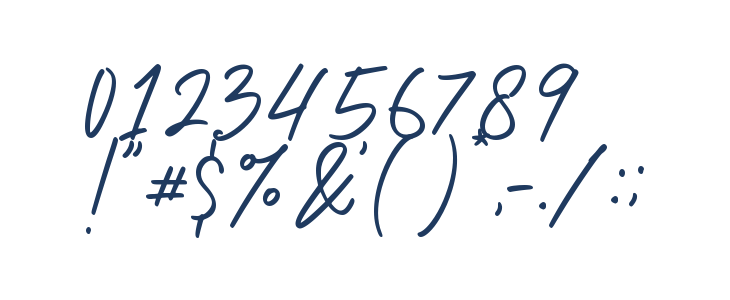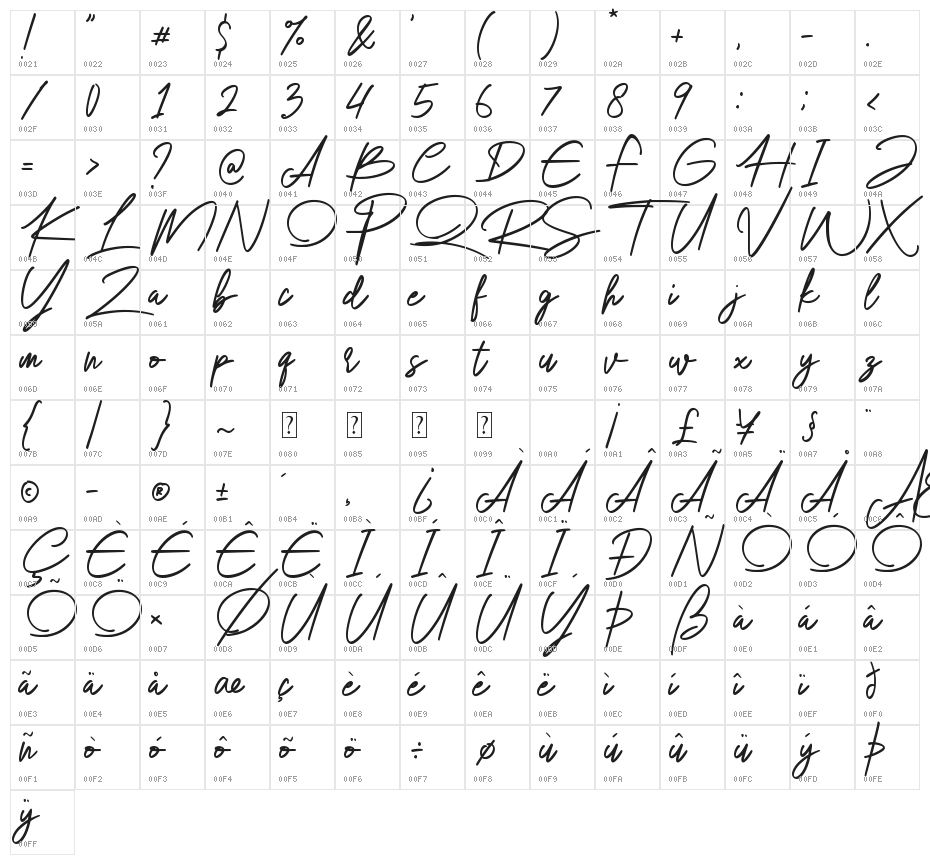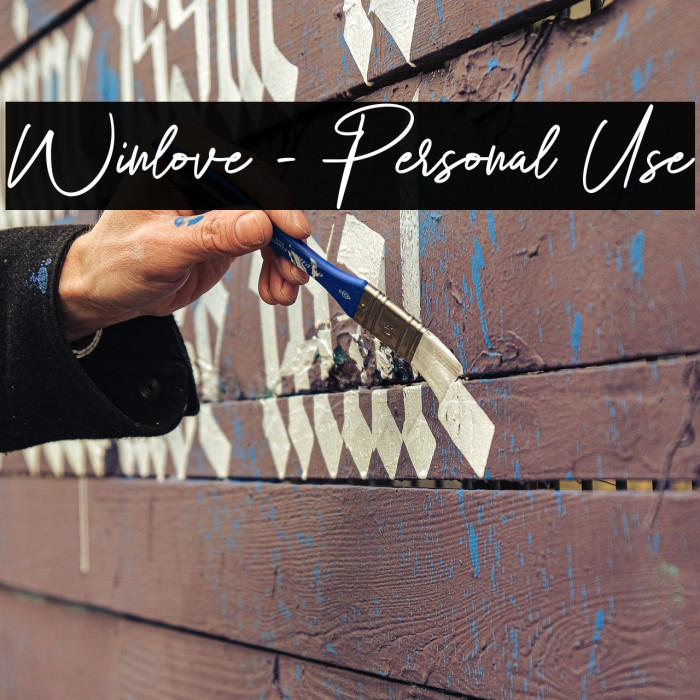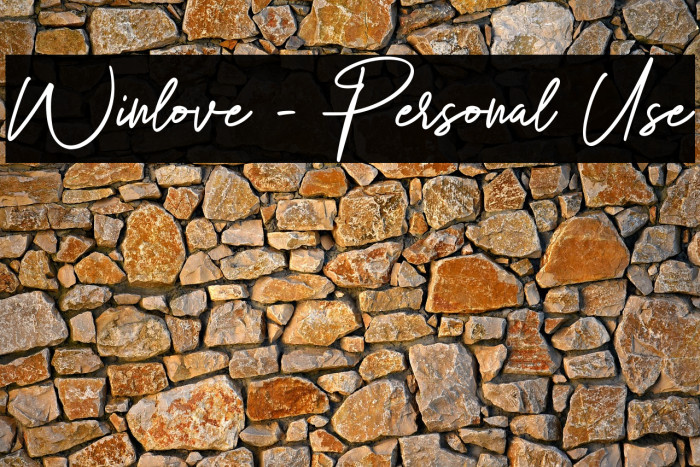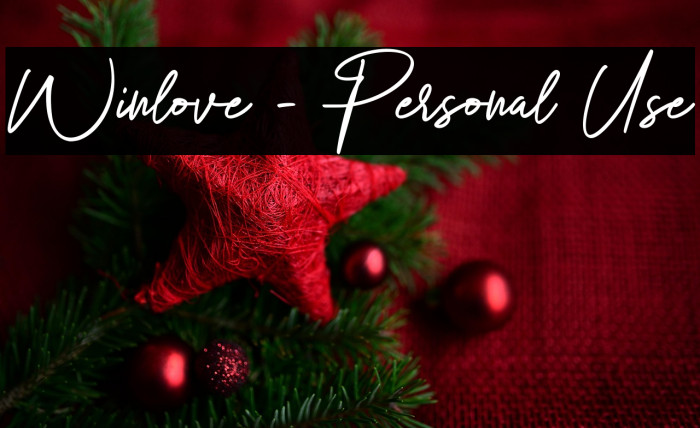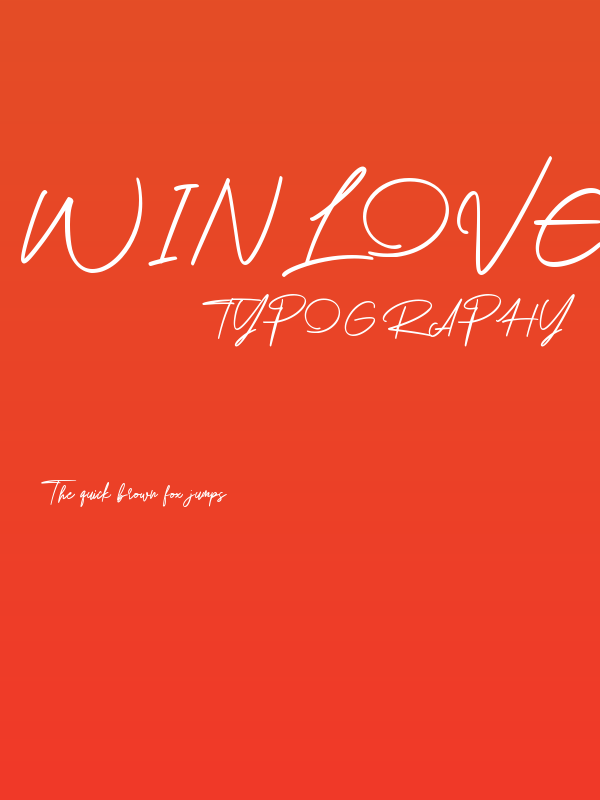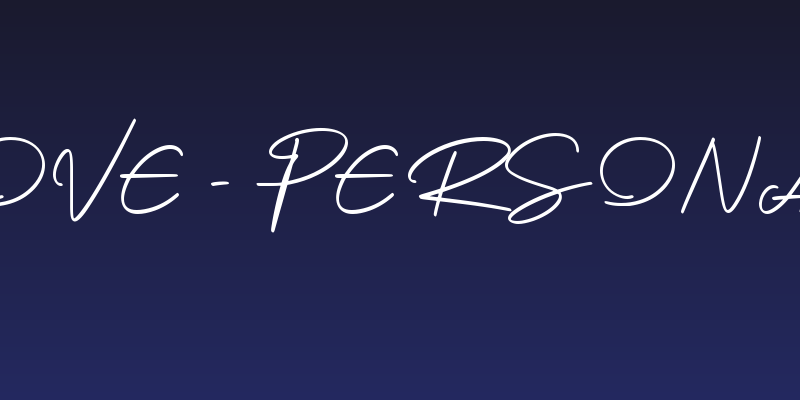
Winlove - Personal Use Font
Winlove - Personal Use Description
This font features a dynamic and fluid script style, characterized by its elegant and flowing letterforms. The uppercase letters are slightly slanted with a consistent stroke width, giving them a sophisticated and modern appearance. The lowercase letters are more bold and expressive, with a playful and artistic flair. The numerals and special characters maintain the same fluidity, ensuring a cohesive look across all text. This font is perfect for adding a personal touch to any project, with its handwritten aesthetic and smooth curves.